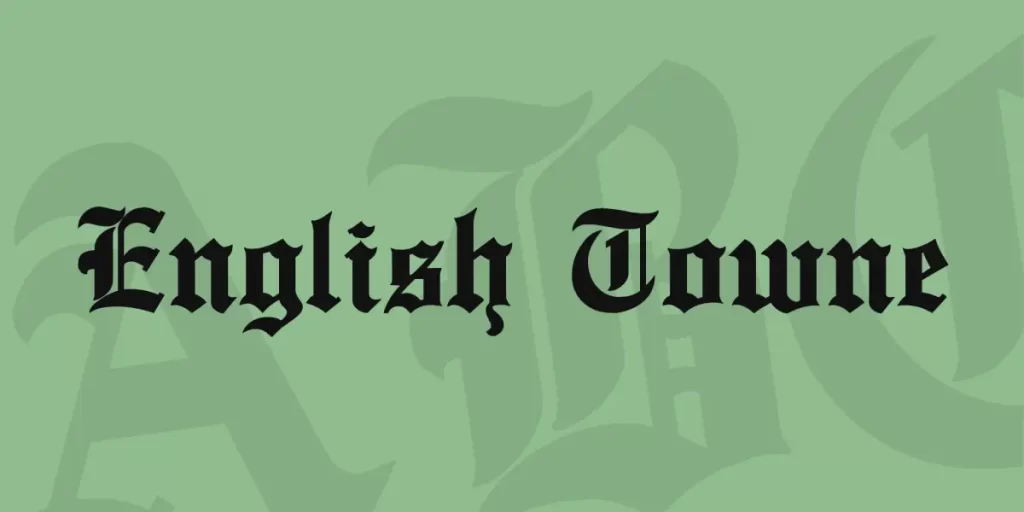
Step back in time and bring a touch of timeless elegance to your designs with “English Towne ”. Perfect for logos, invitations, tattoos, or historical-themed projects, this classic typeface adds a royal and gothic touch that is great for attention. Download this Blackletter typeface now for free.